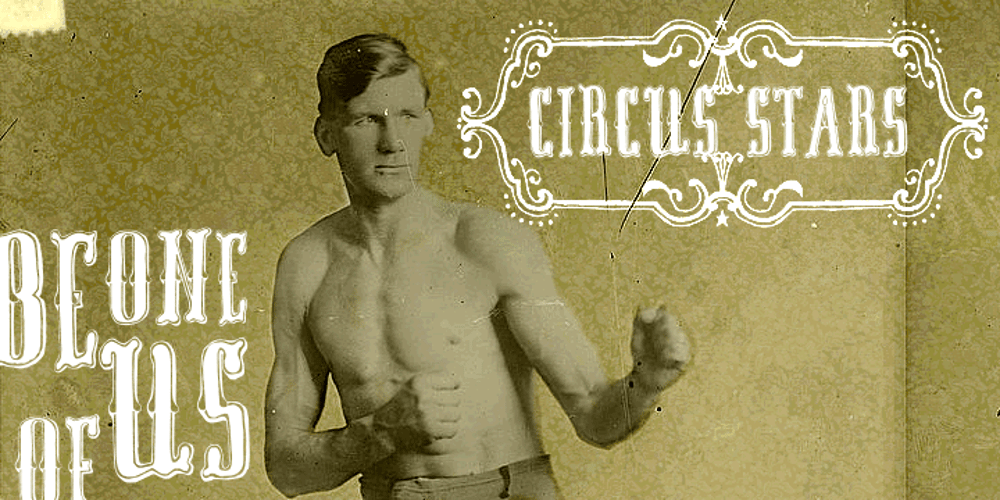
Circus Stars Font Family was designed by published by Vladislav Ivanov. Circus Stars contains 1 styles and family package options. Circus stars is Vladislav Ivanov font with a retro touch, inspired by the look of old circus and movie posters. It works well with normal size text, but it works even better for large displays, short words, or even just to incorporate a few or single characters in a design.